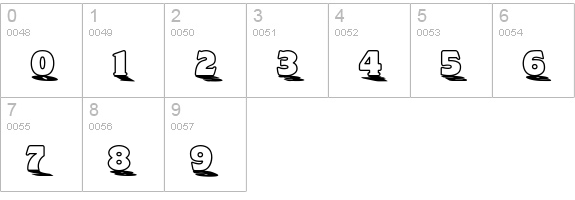
Toyland-OutlineA Font Details
Introducing Toyland-OutlineA, a whimsical and delightful font that will transport you straight into the enchanting world of childhood imagination! With its playful and charming design, this font captures the essence of youthful wonder and brings it to life on your projects. Toyland-OutlineA is perfect for adding a touch of magic to your designs, whether you're creating invitations for a children's party, designing a captivating book cover, crafting a fun logo, or simply adding some joy to your personal projects. Its unique outline style adds an extra layer of creativity, making every letter an artistic masterpiece. But what sets Toyland-OutlineA apart is not just its captivating design, but also the fact that it is freely available to download at FontsMarket.com. Yes, you read that right - this amazing font can be yours without any cost! It's our way of spreading happiness and creativity to as many people as possible. Downloading Toyland-OutlineA from FontsMarket.com is quick and easy. Once you have it in your font collection, you'll have endless possibilities to bring your ideas to life with this delightful typeface. The free availability of this font ensures that everyone, regardless of budget or resources, can access the magic and charm that Toyland-OutlineA offers. So why wait? Dive into the world of Toyland-OutlineA and let your imagination run wild. Download it for free at FontsMarket.com today and unlock a world of creativity!